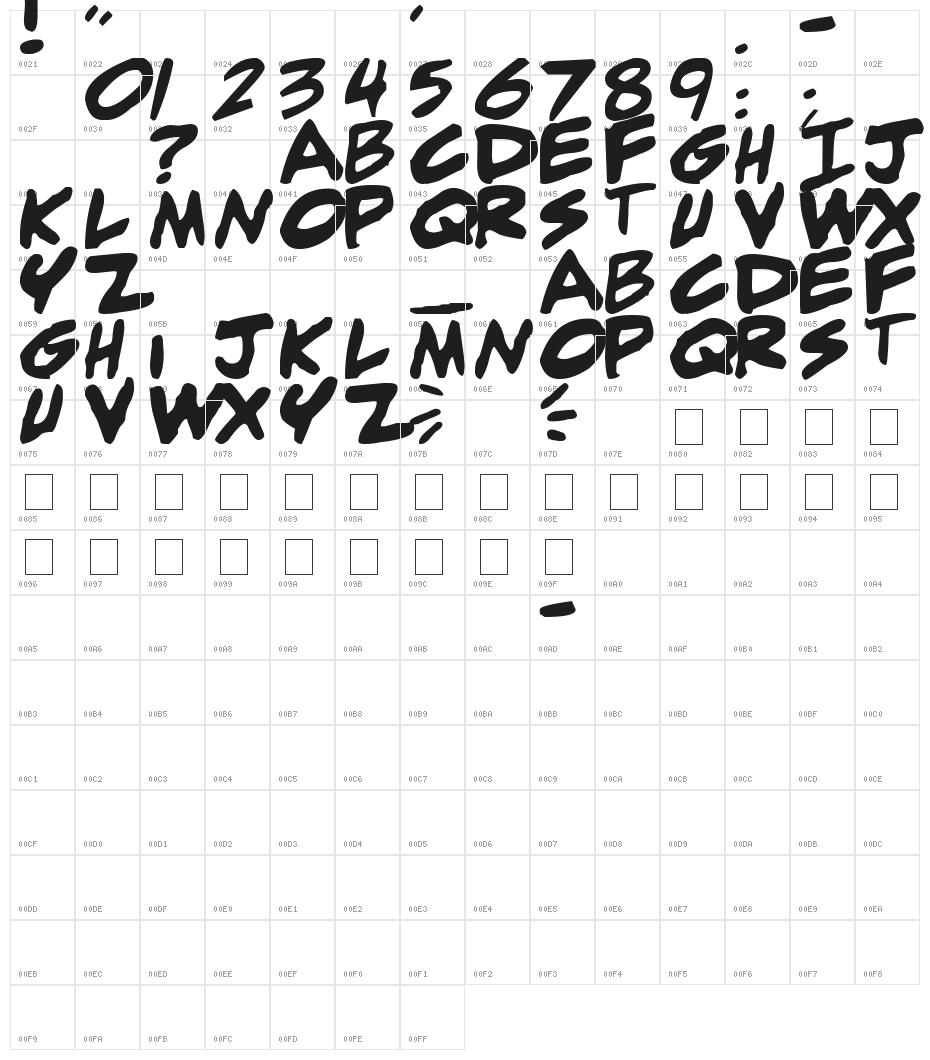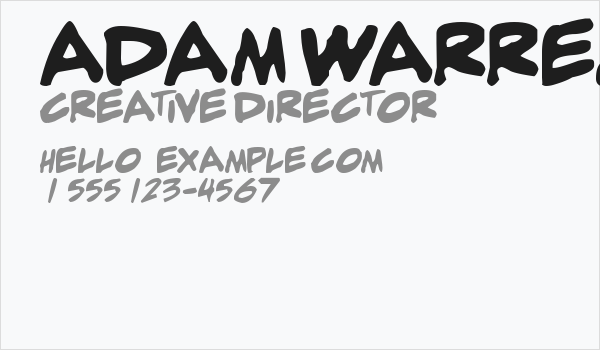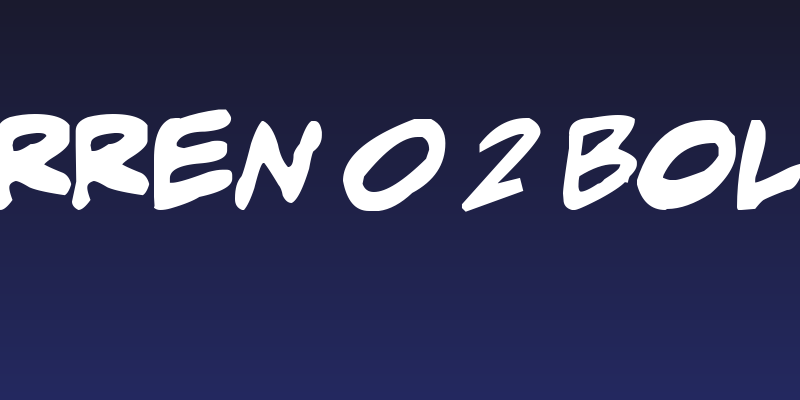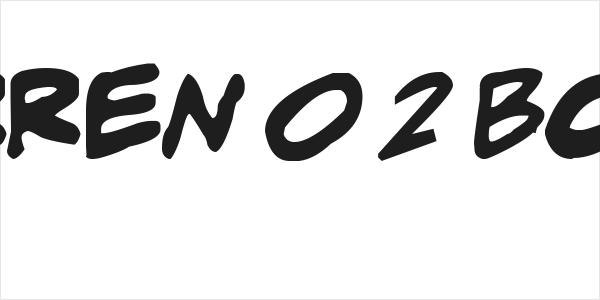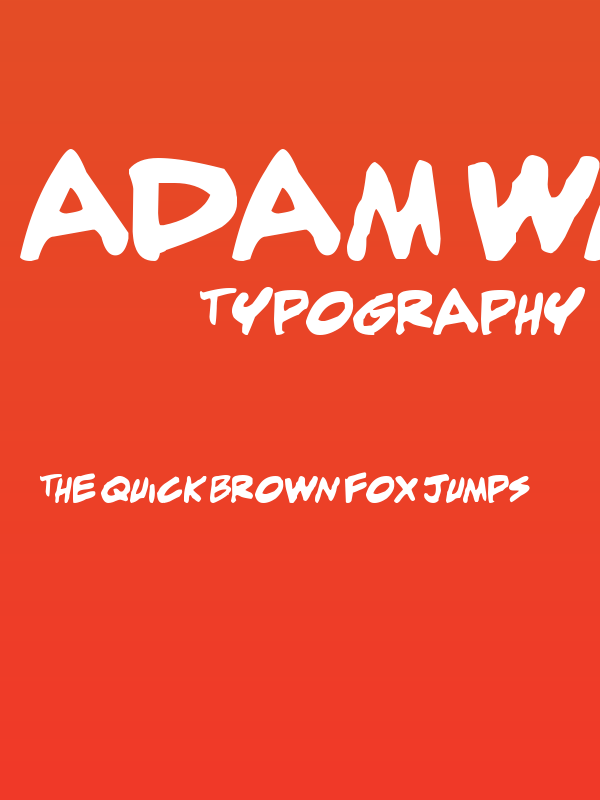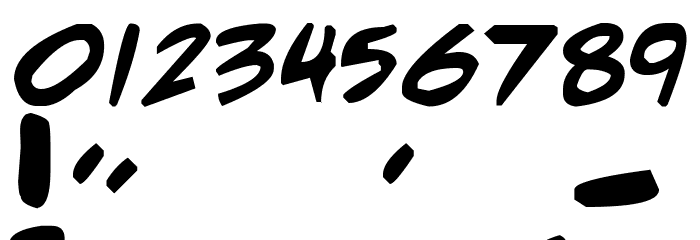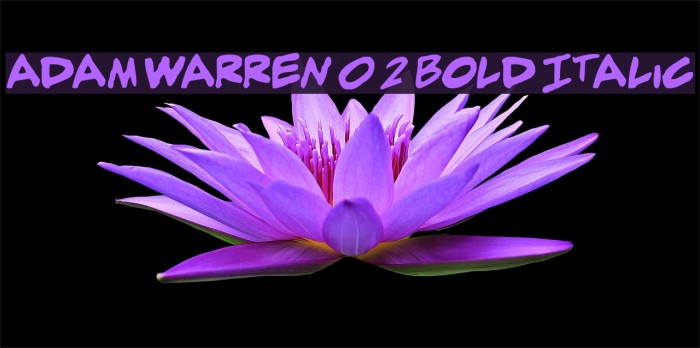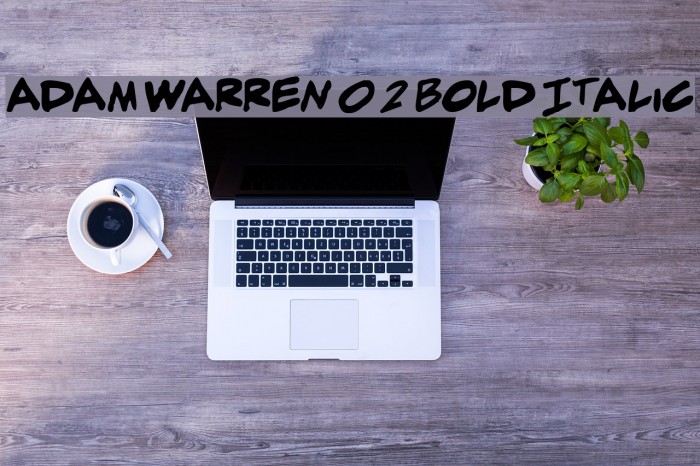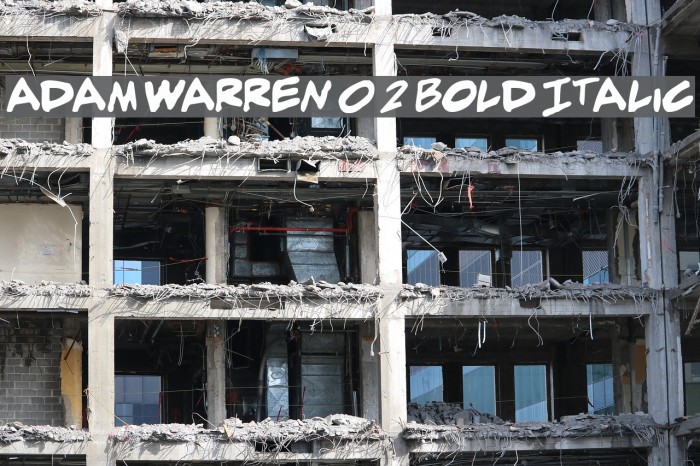
adam warren 0.2 Bold Italic Font
adam warren 0.2 Bold Italic Description
This font features a bold and dynamic style with a pronounced italic slant, giving it a sense of movement and energy. The characters are thick and robust, with a slightly uneven baseline that adds a casual, handwritten feel. The strokes are rounded and smooth, contributing to a friendly and approachable appearance. The uppercase and lowercase letters maintain a consistent style, while the numerals are clear and easy to read. Special characters are designed to match the overall bold and playful aesthetic, making this font suitable for eye-catching designs.
| Proposed Projects | Ideal for branding, posters, headlines, and any project requiring a bold, energetic touch. |